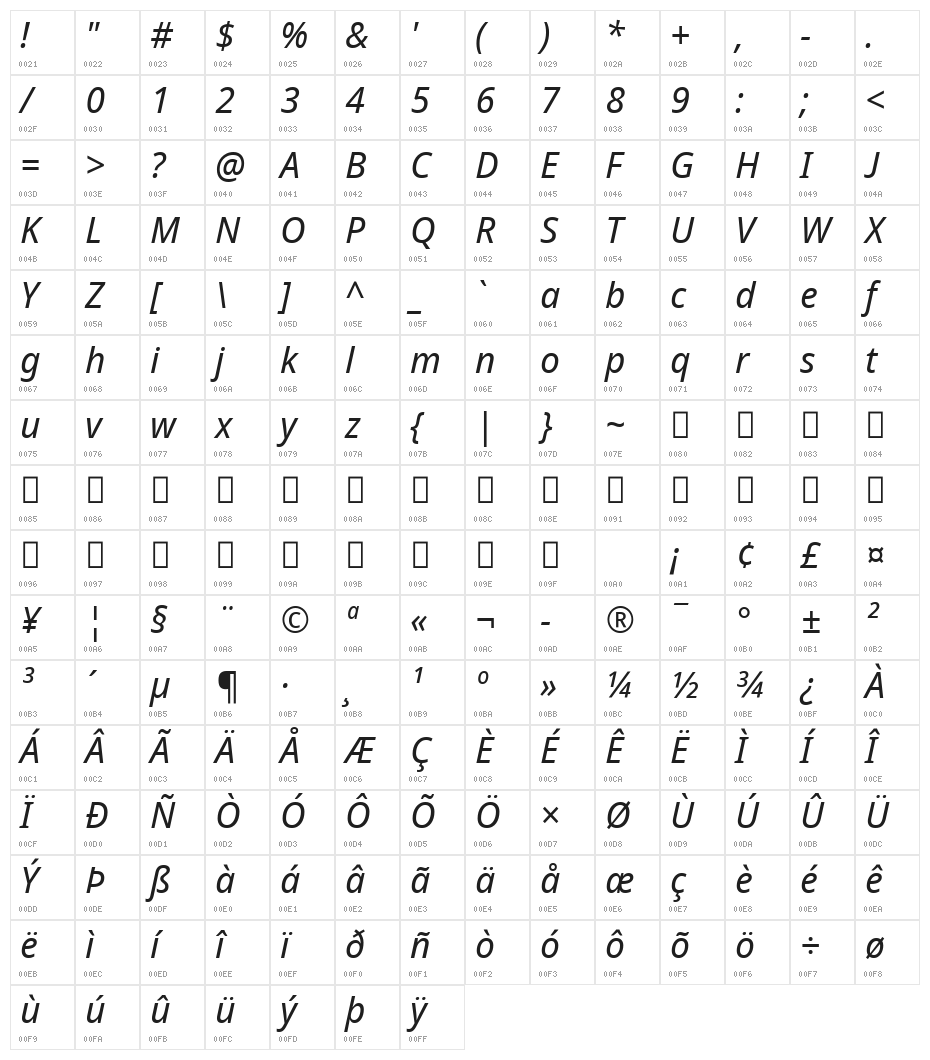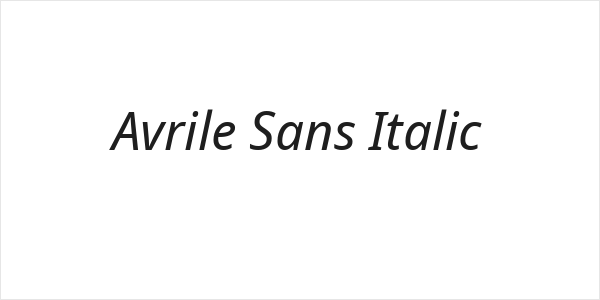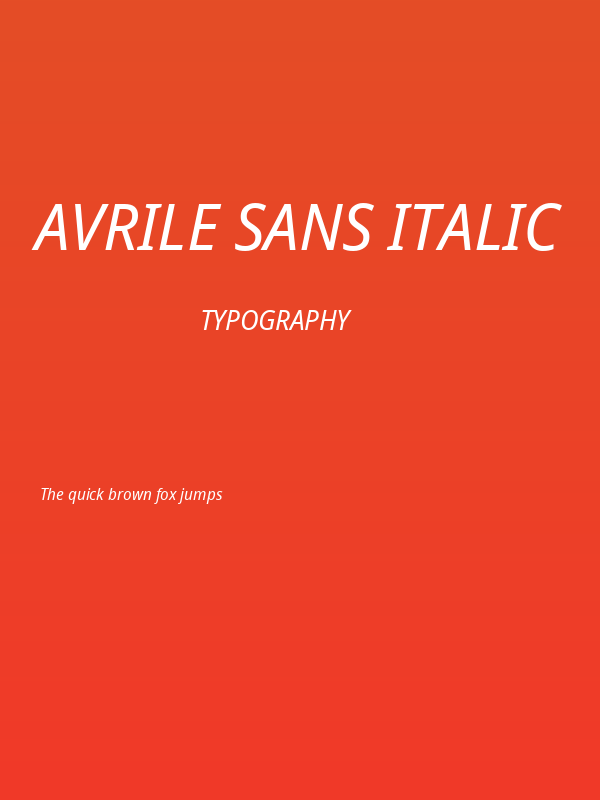
Avrile Sans Italic Font
Avrile Sans Italic Description
This font features a sleek, modern sans-serif design with a subtle italic slant, giving it a dynamic and forward-moving appearance. The characters are clean and well-defined, with consistent stroke widths that provide a uniform look. The uppercase letters are bold and commanding, while the lowercase letters maintain a smooth and approachable style. Numerals are clear and easy to read, making them suitable for various applications. Special characters are included, enhancing the font's versatility. Overall, this font combines elegance with functionality, making it ideal for contemporary design projects.
| Proposed Projects | Ideal for branding, advertising, digital media, and editorial design due to its modern and clean aesthetic. |